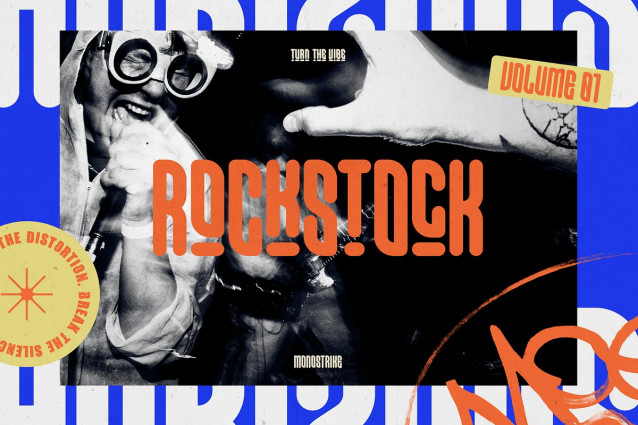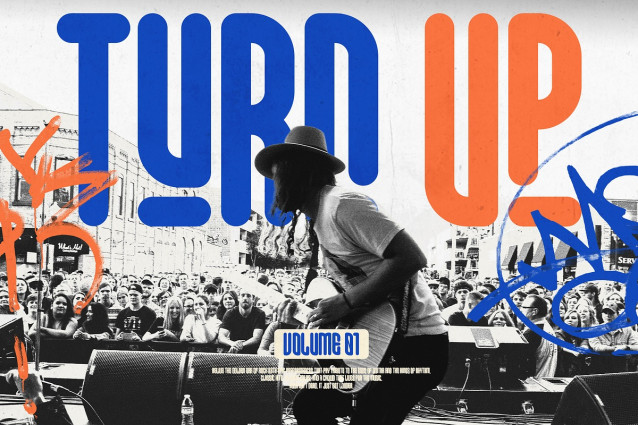
Monostrike Font
Monostrike Font is a bold, rounded serif font with a modern edge, combining sharp presence with smooth curves. Inspired by urban culture and retro typography, it brings a unique character to headlines, logos, and digital designs.